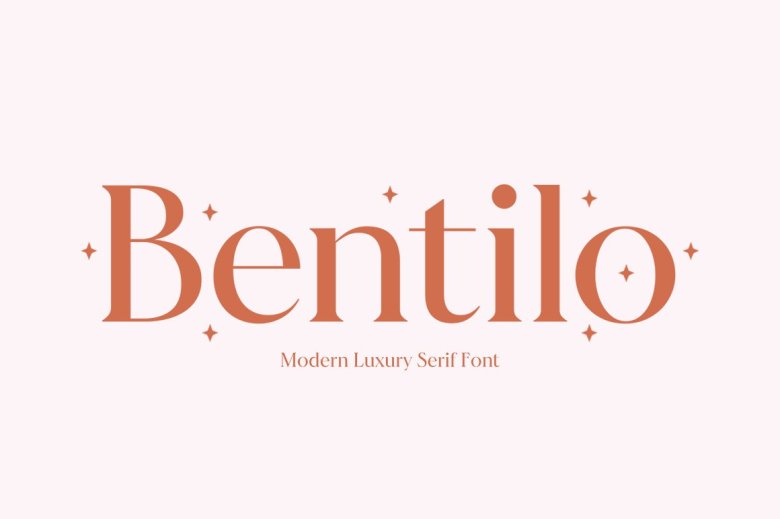
Bentilo Font
Bentilo Modern Serif is our brand-new release! Bentilo is an elegant and sophisticated serif typeface that fits both contemporary and nostalgic aesthetics, making it great for logos, magazines, social media posts and more! Already matched for use, this font provides elegance chic sophistication modernity for your next design project – this font was tailored specifically for this purpose!
Bentilo Luxury Serif Font